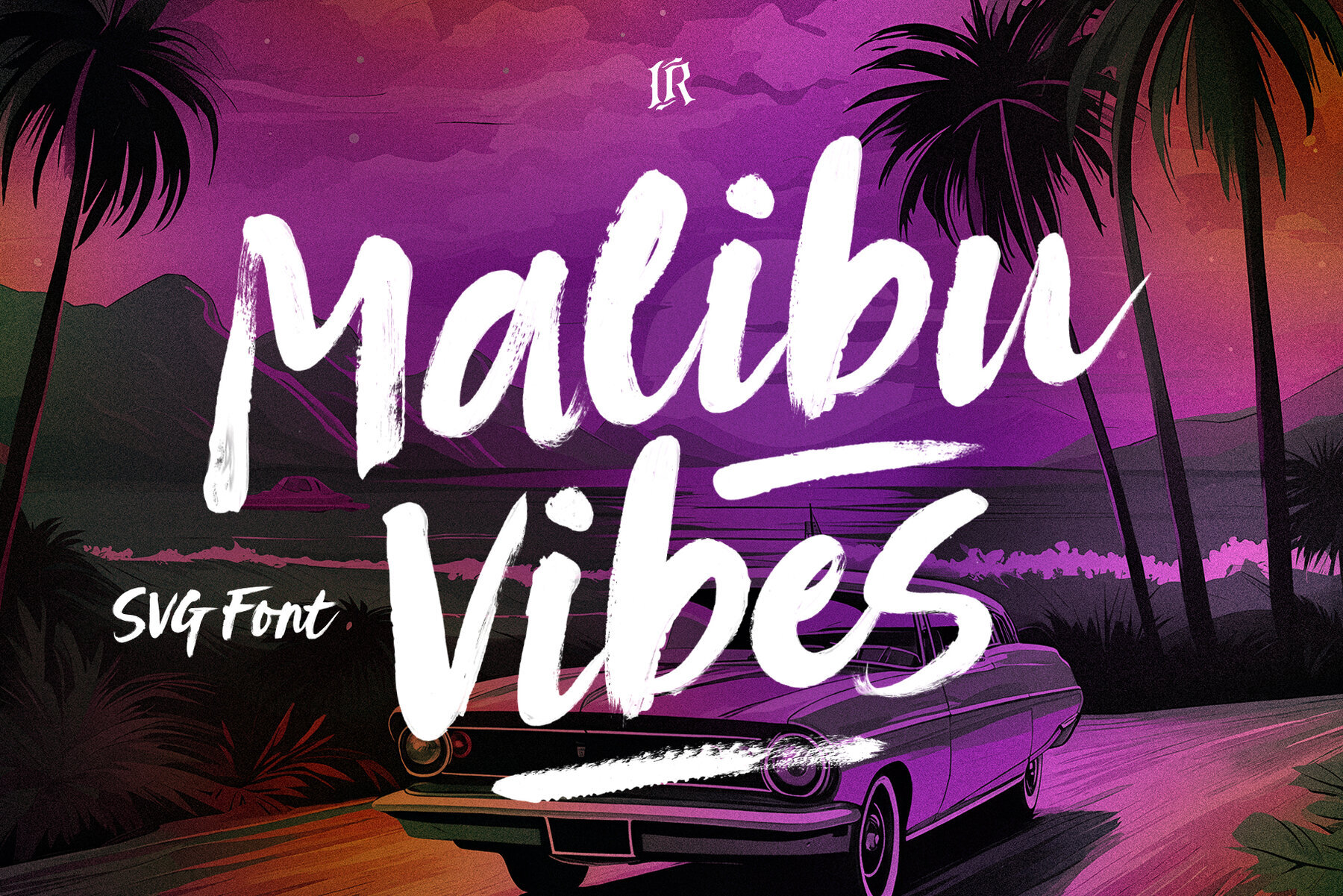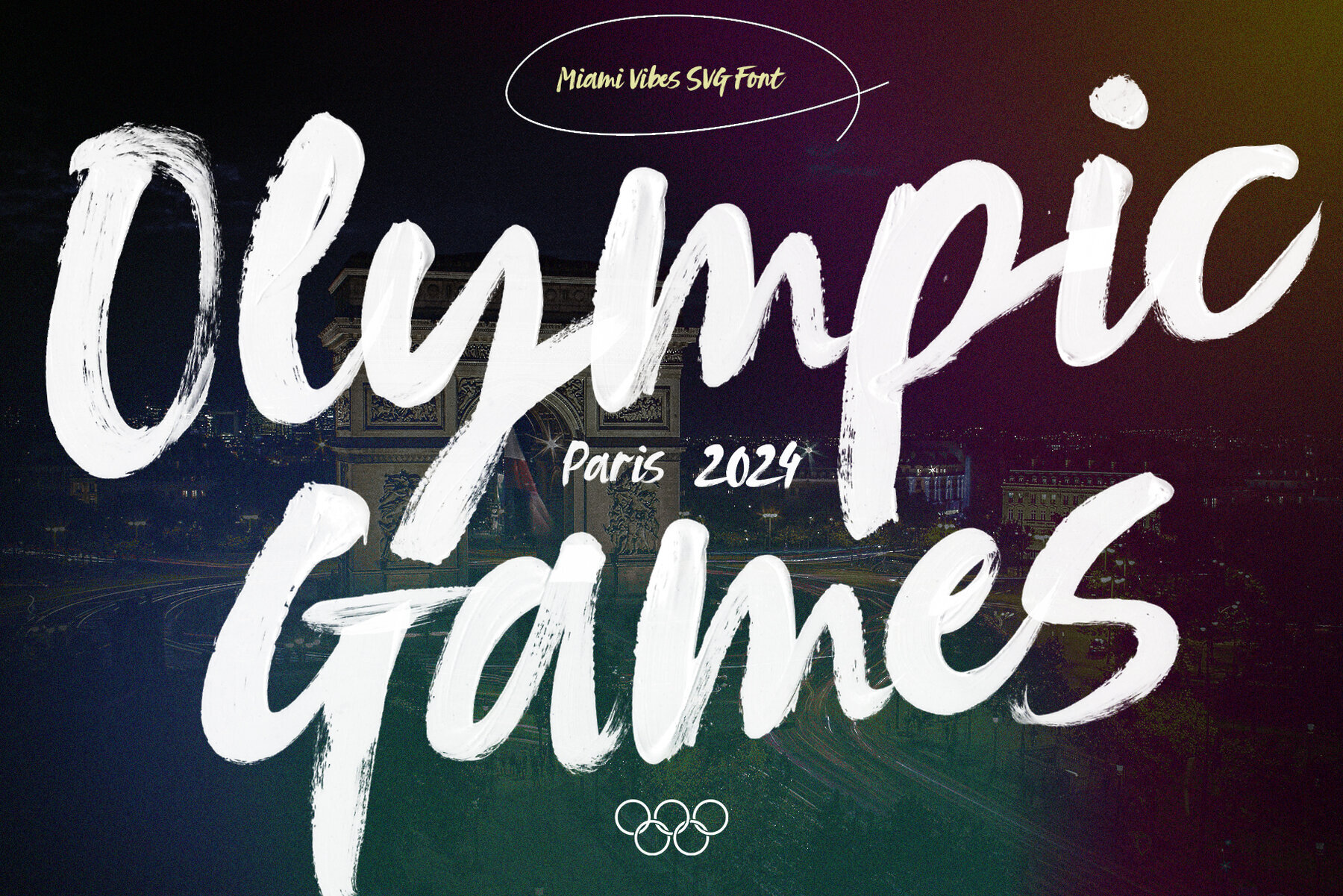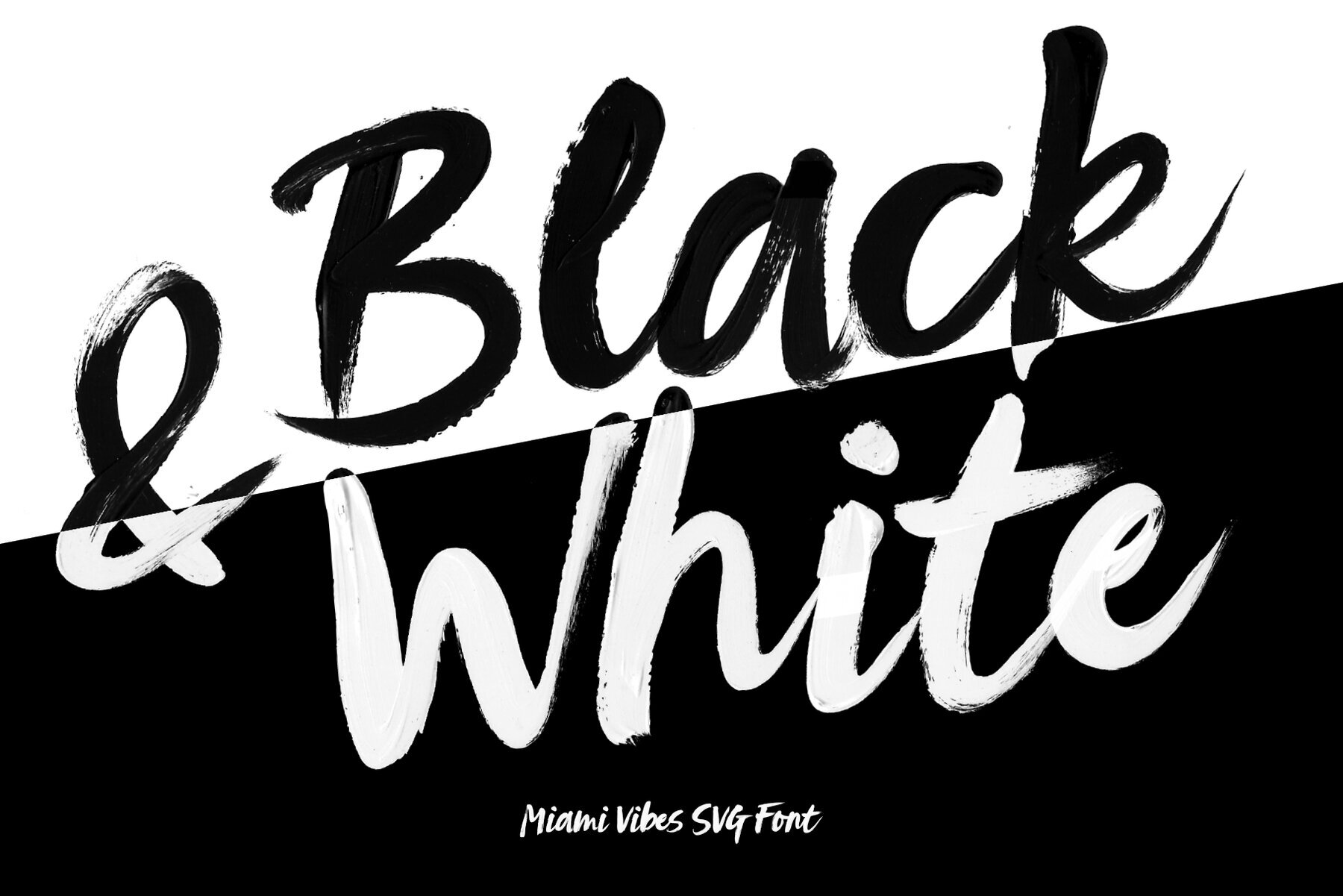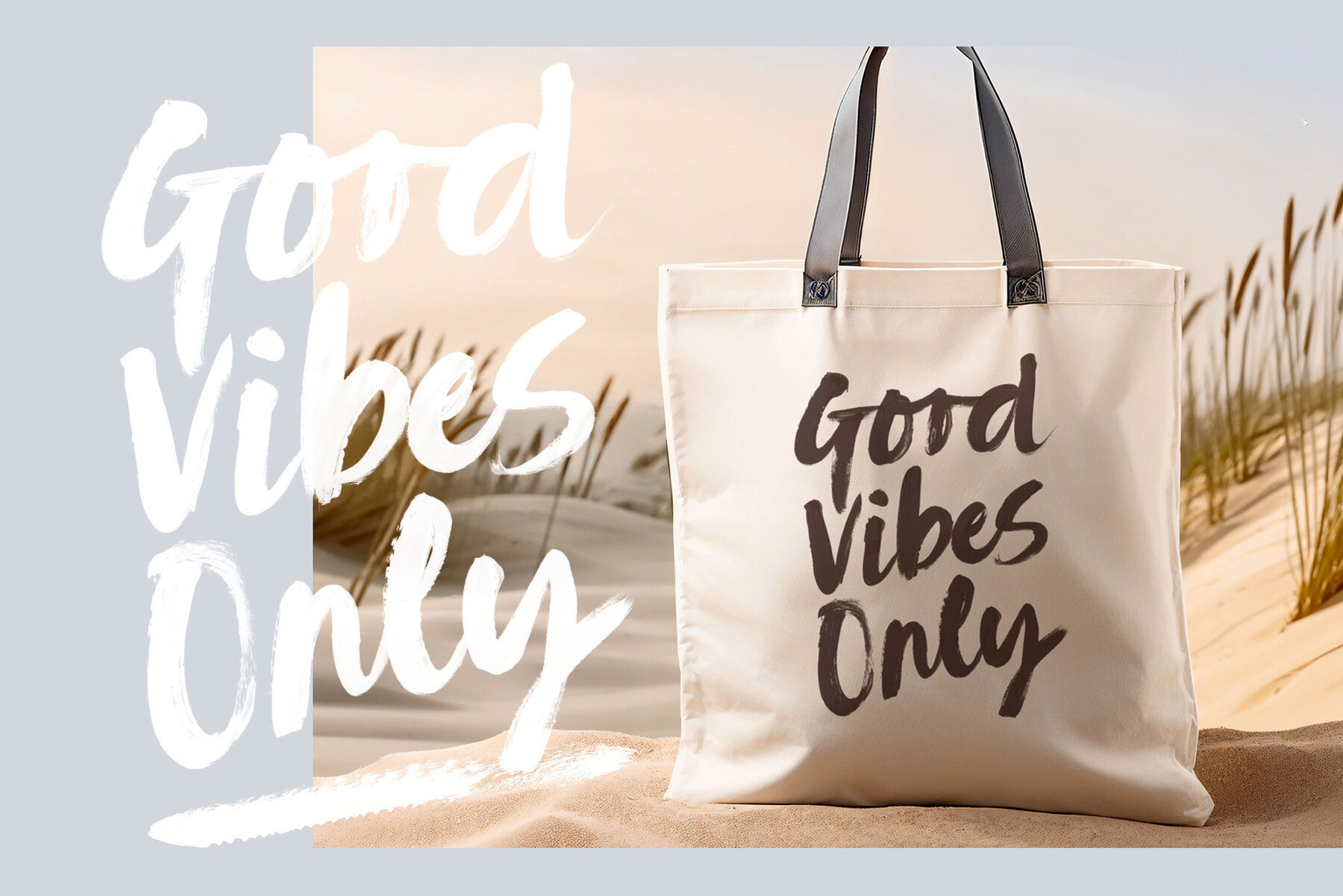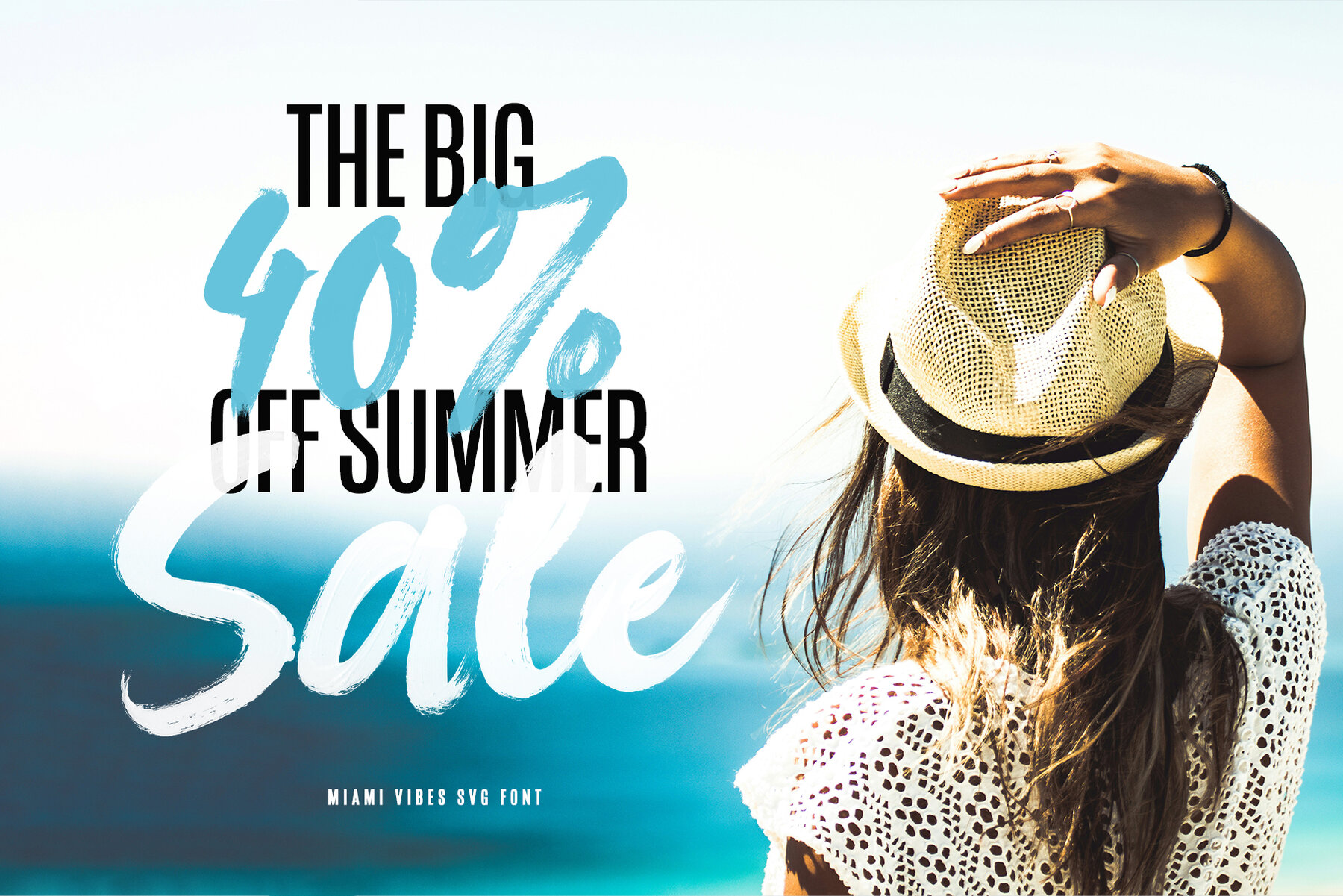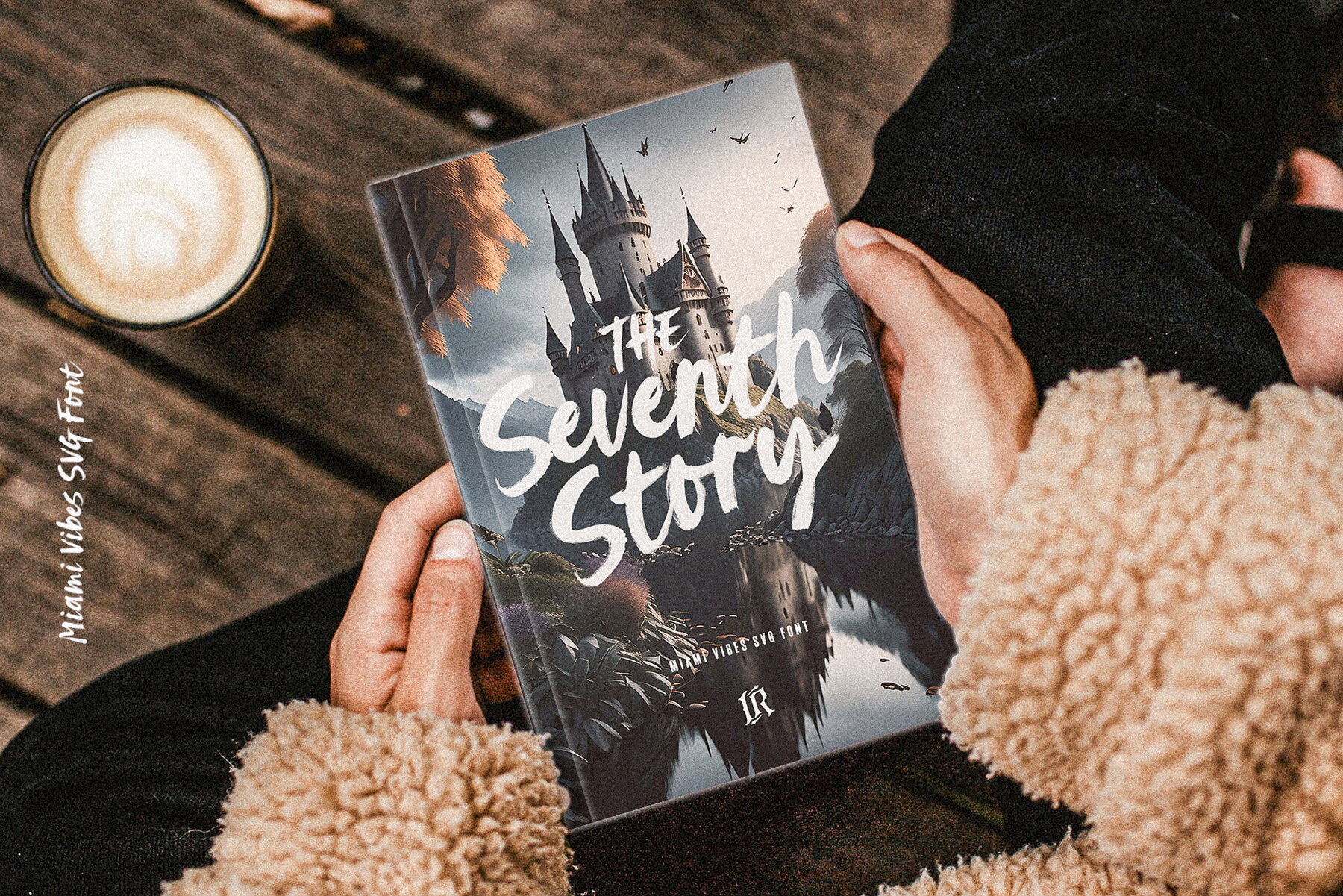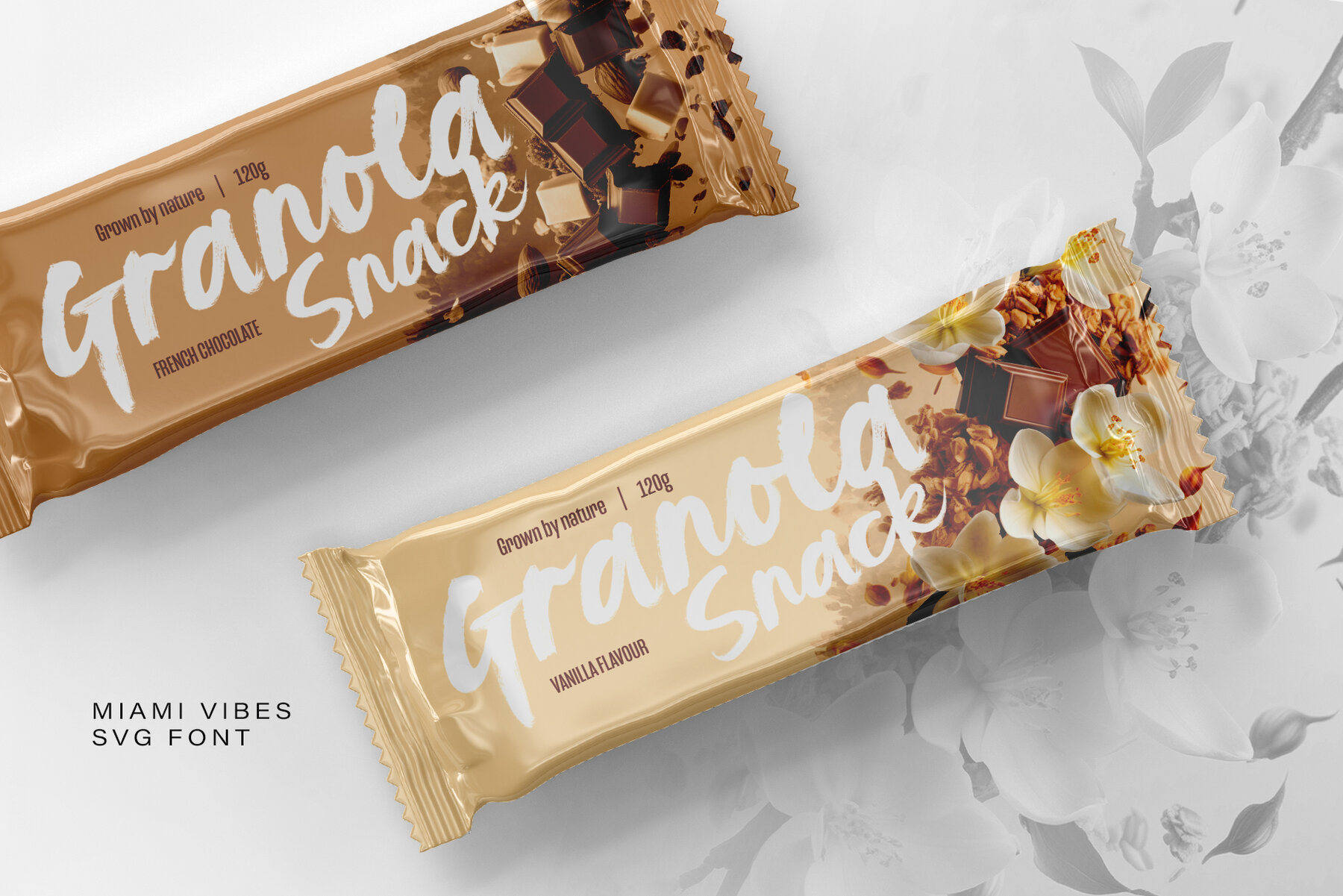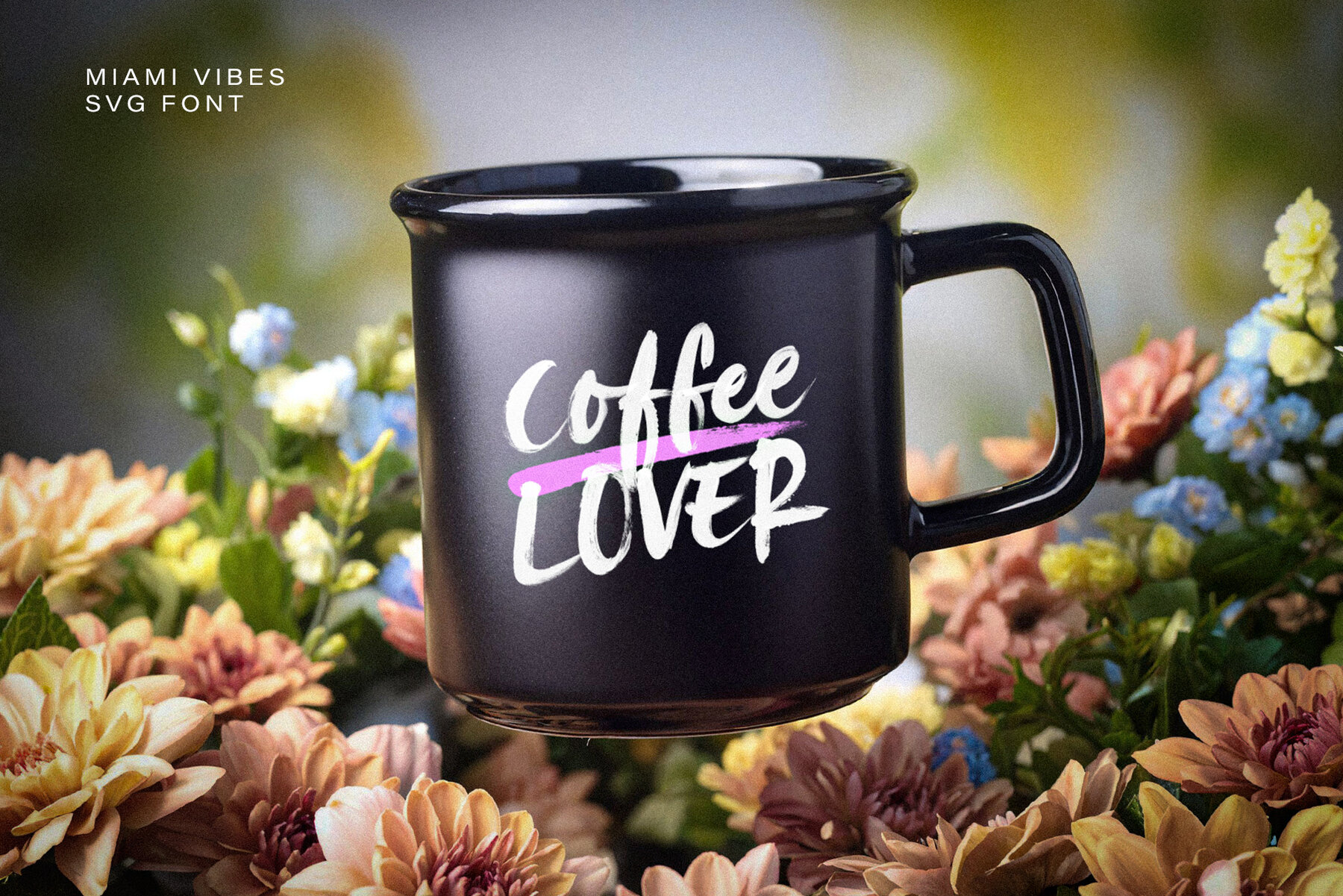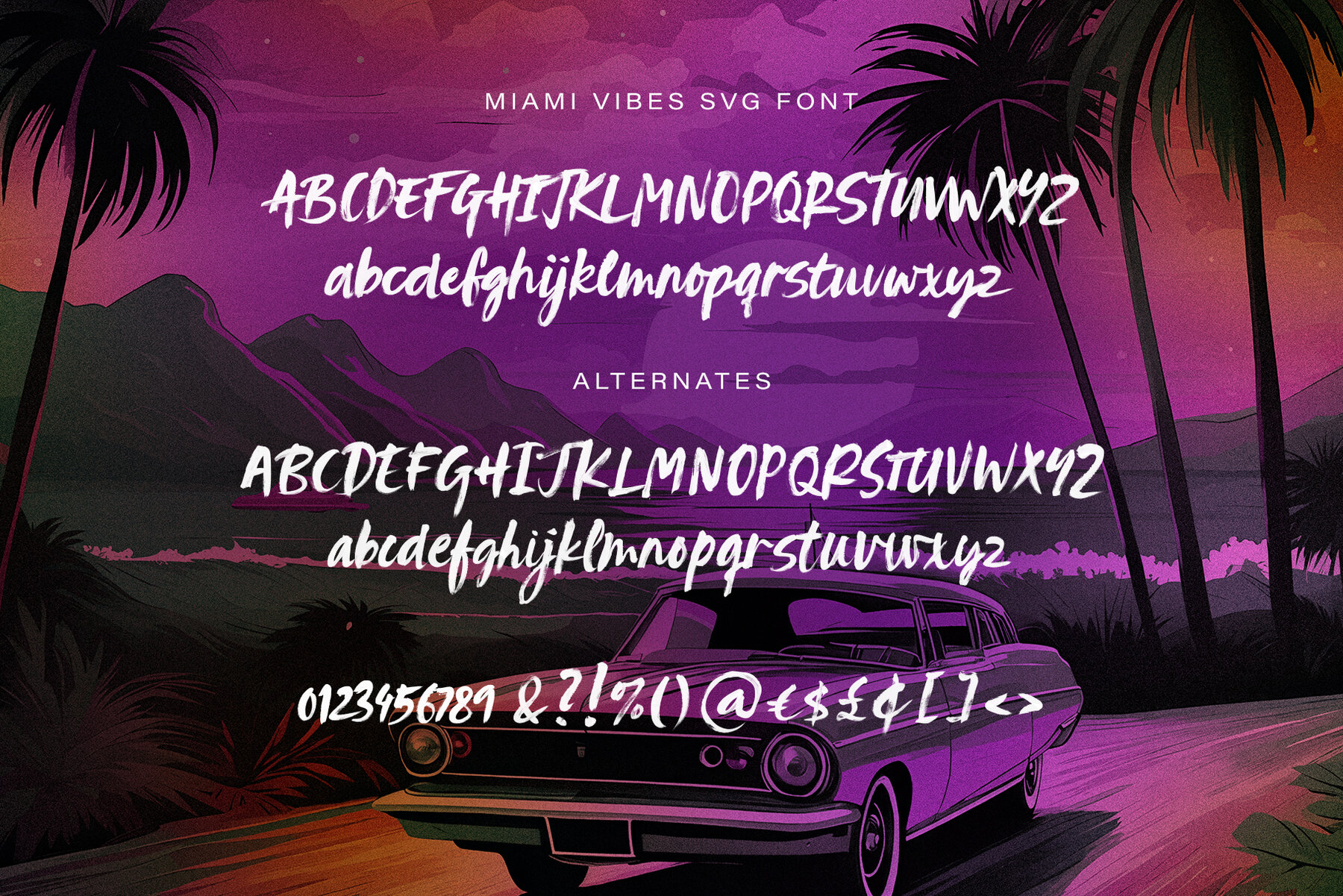
Malibu Vibes SVG Font
Malibu Vibes SVG Font preserves all the high definition detail of the original handwritten letters. Using OpenType-SVG technology it truly looks realistic. --- Supported Languages